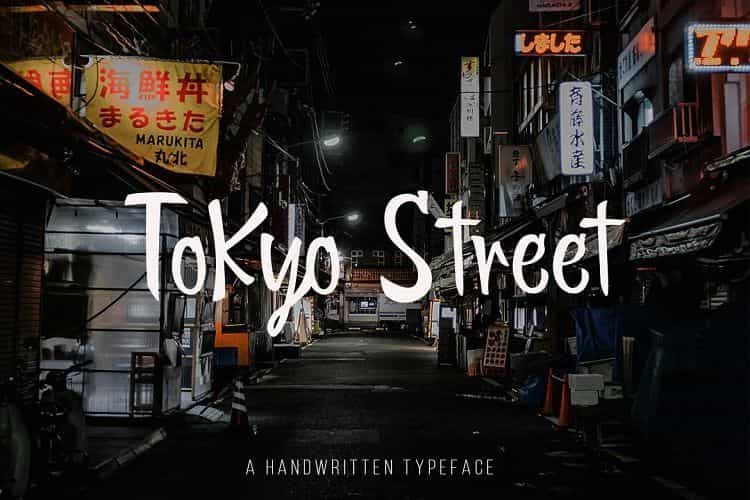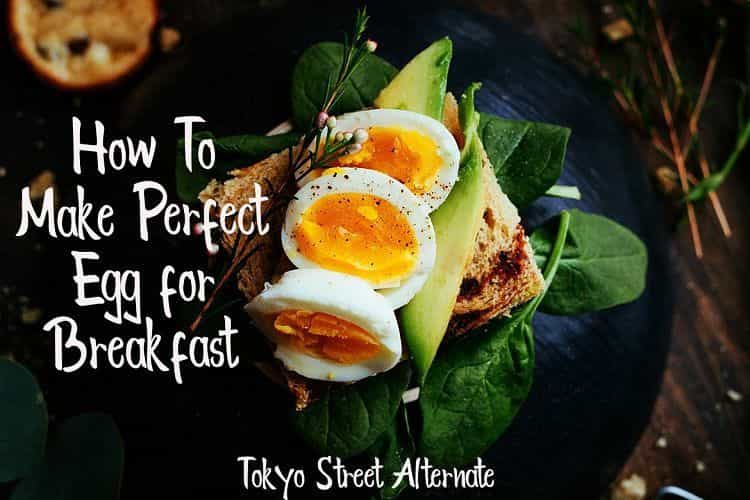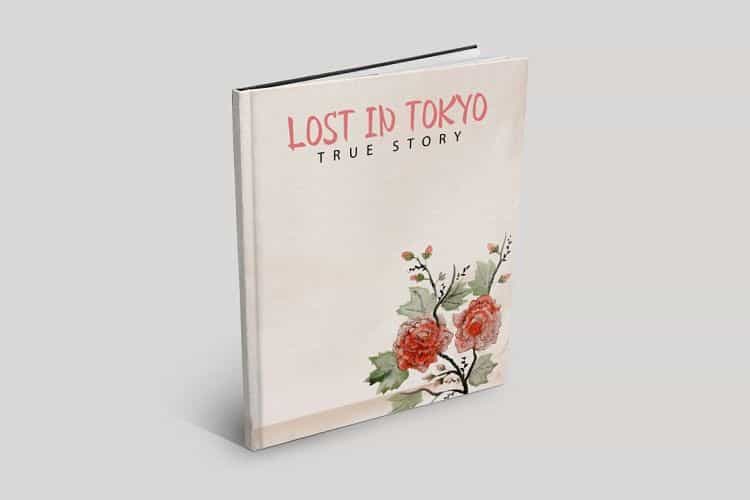
Tokyo Street Font is a handwriting style font which is drawn using brush pen in a handwritten manner. Scanned meticulously to retain the hand written appearance and style. This font could be used for logotype, tag lines and some of glyphs can be used to create a logo icon/symbol.